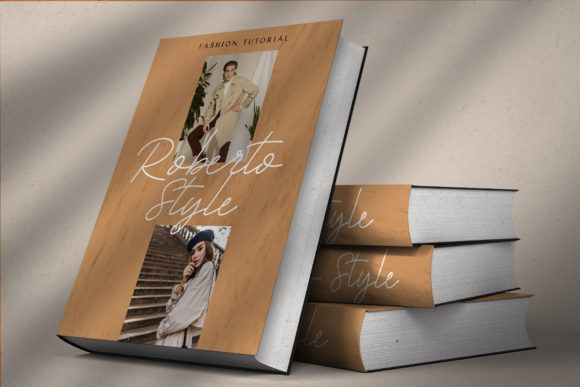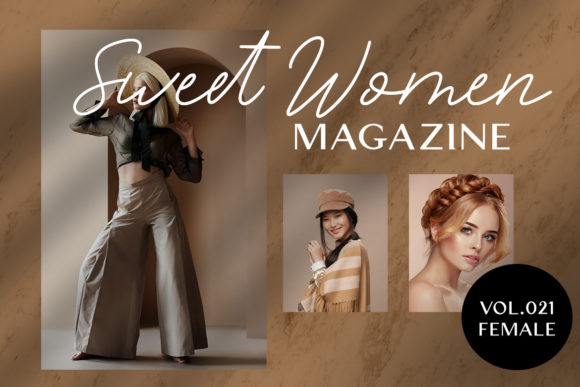
Frothydue Font
db-ku.com - Script & Handwritten -- Frothydue is a lovingly crafted script typeface that lends a natural feel to all your designs. This font looks perfect for cards, invitations, logos and various other creations that may require a personalized touch.